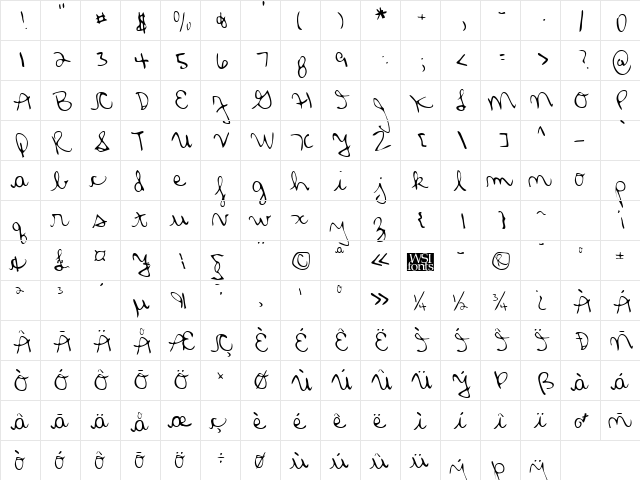
FlorasHand Regular
Design Context for FlorasHand Typeface
FlorasHand flows with the natural rhythm of handwritten lettering, making it ideal for designs that call for warmth and personal expression.
Font Pairing: Combine FlorasHand with a simple geometric sans for maximum contrast — the tension between flowing curves and clean structure is a classic typographic pairing.
Pro Tip: Use FlorasHand for short runs of text — names, titles, or taglines. Extended body copy in script faces tires the eye quickly.